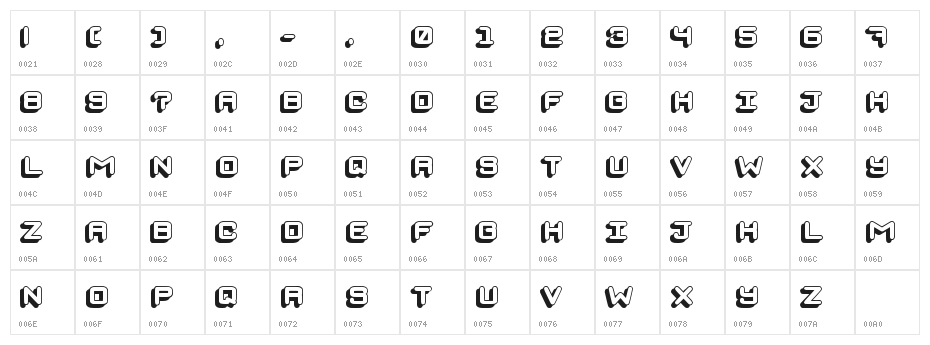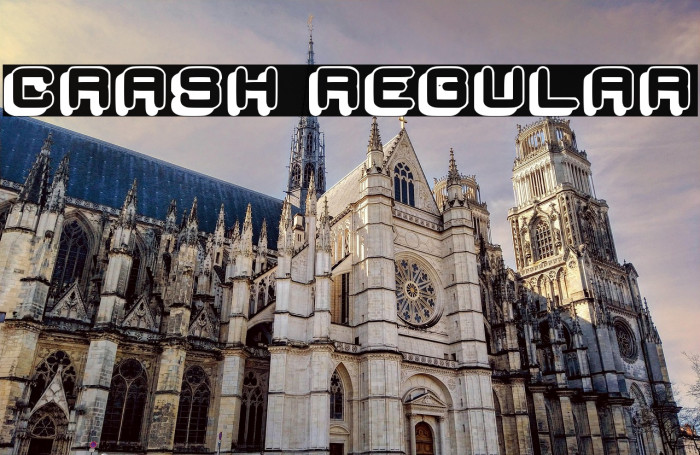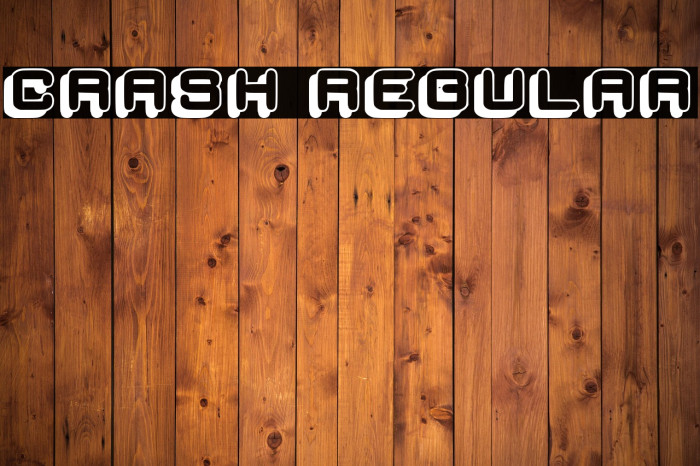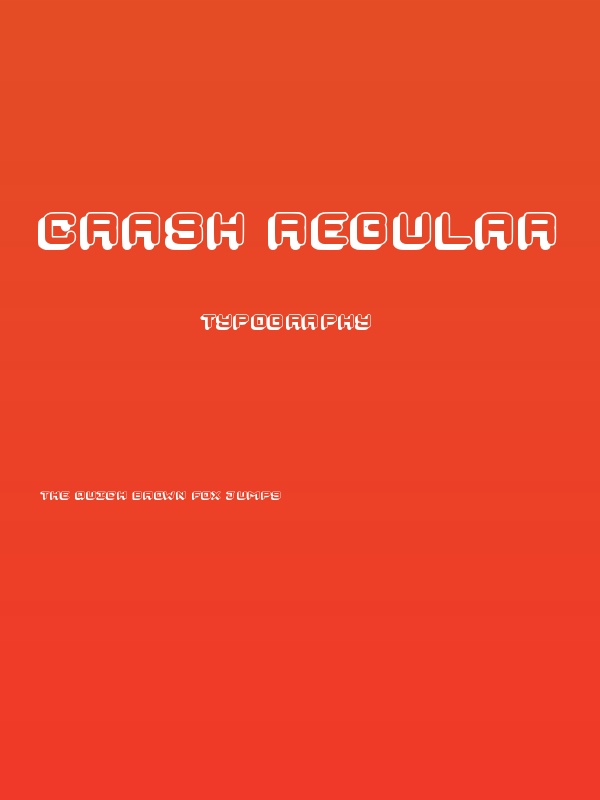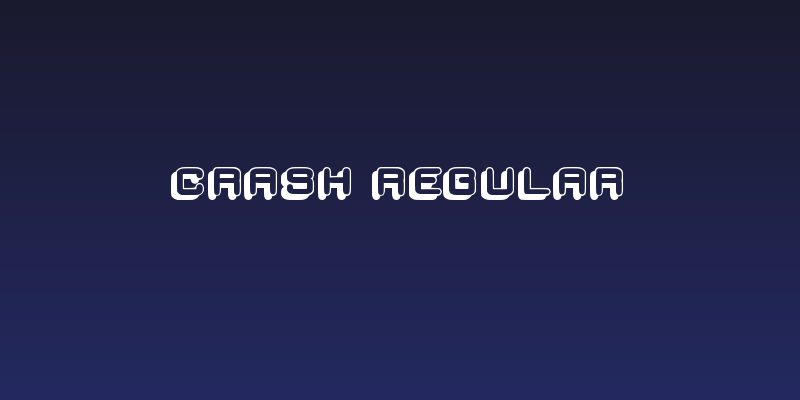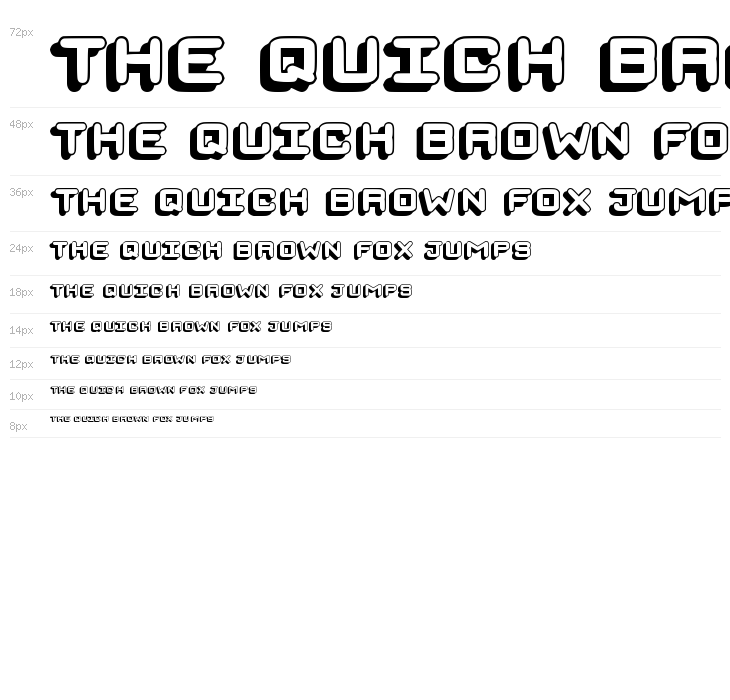
Crash Regular Font
Crash Regular Description
This font features a bold, modern design with a distinctive 3D effect, created by a shadow-like outline that gives depth to each character. The uppercase and lowercase letters maintain a consistent style, with rounded edges and a geometric structure that enhances readability. The numerals and special characters follow the same design principles, ensuring uniformity across all glyphs. This font's unique style makes it stand out, ideal for eye-catching designs.